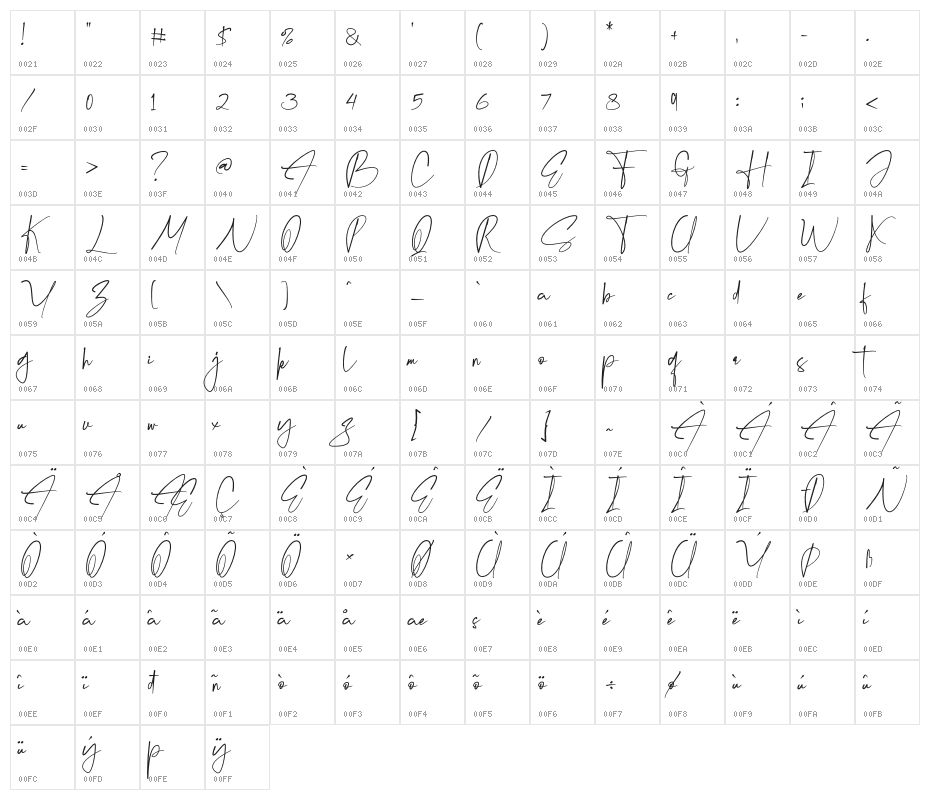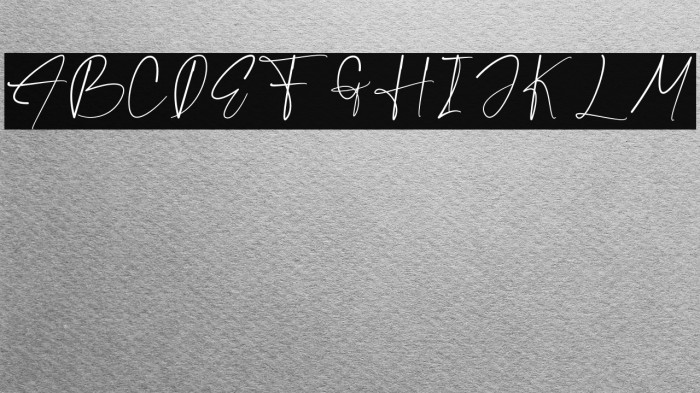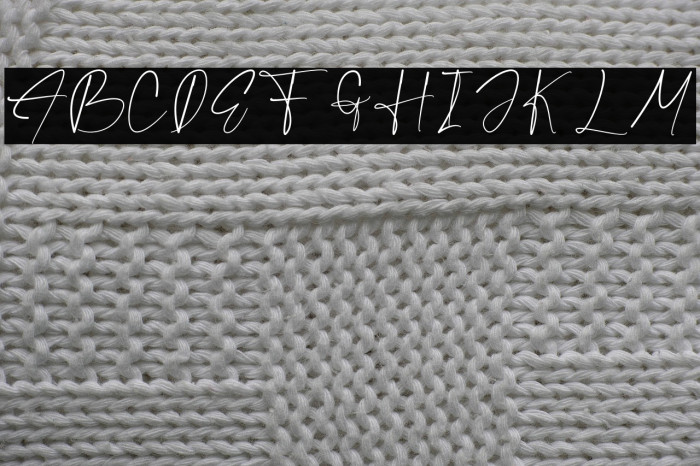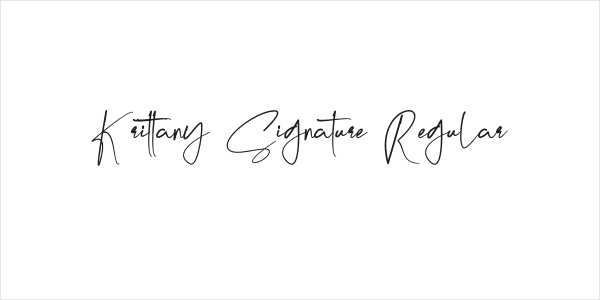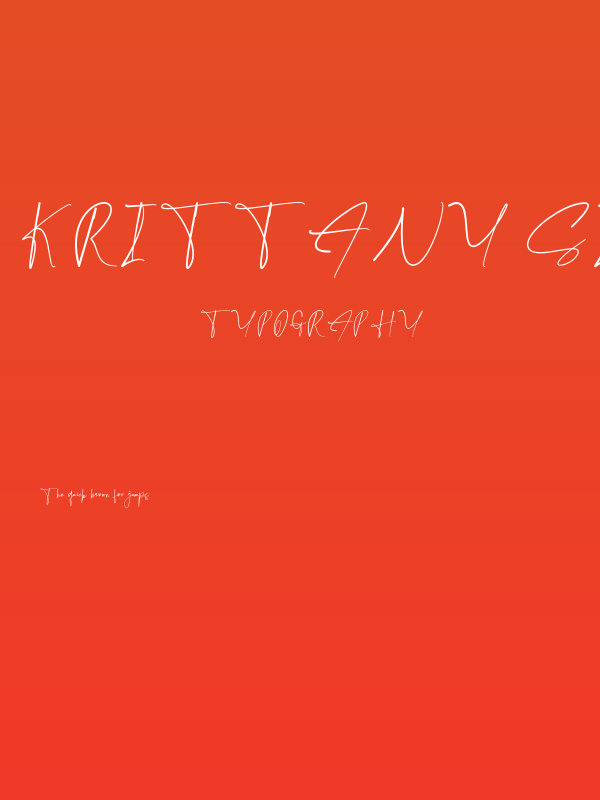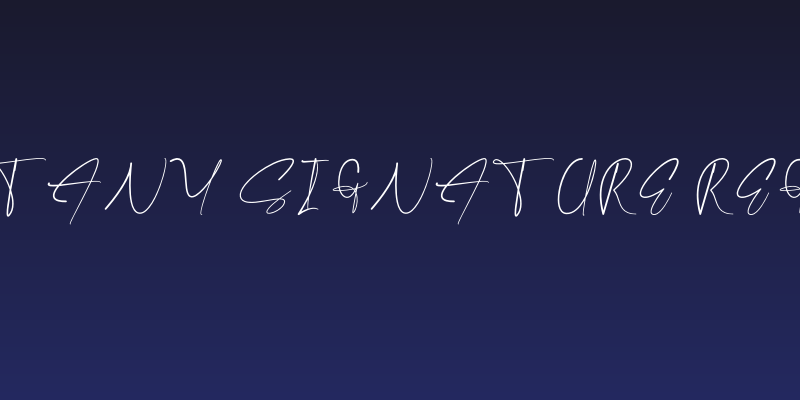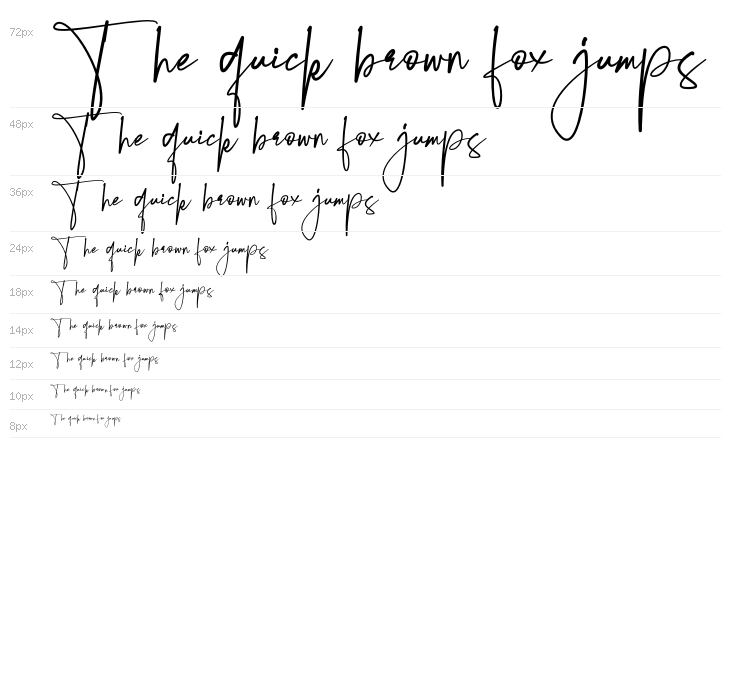
Krittany Signature Regular Font
Krittany Signature Regular Description
A flowing, cursive script font with a handwritten style, featuring elegant and elongated letterforms.
| Use Case | Logos, Signatures, Invitations |
| Proposed Projects | Invitations, greeting cards, personal branding. |